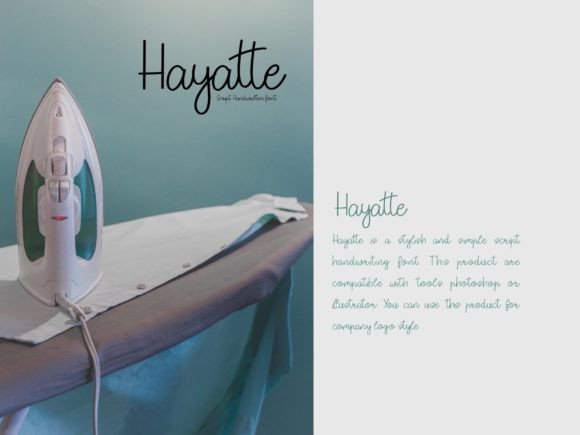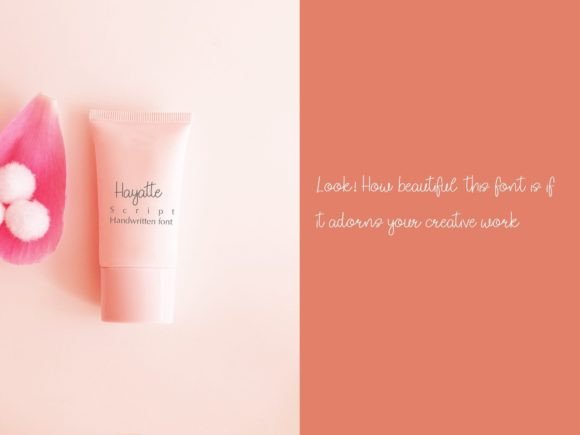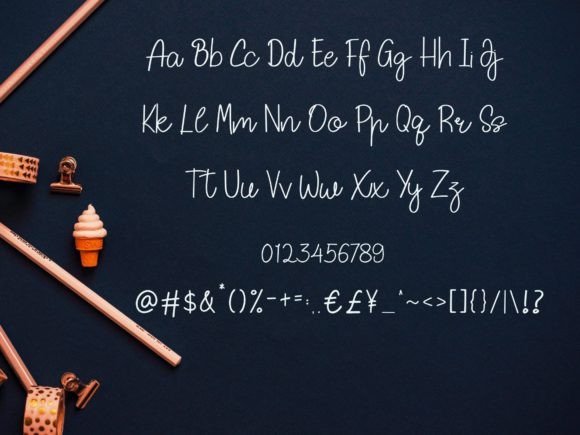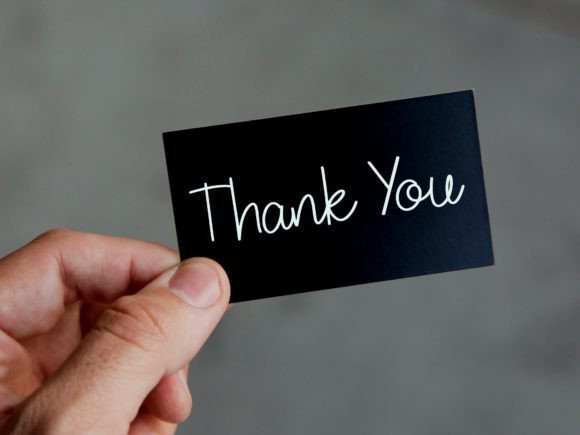
Introduction to Hayatte Font
Remember the thrill of scribbling in your favorite notebook as a child? The freedom to create without worrying about perfection? That same sense of joy can be yours when working with the perfect design resource – the Hayatte Font.
For designers, finding the right font can be a game-changer. It’s the difference between a project that feels complete and one that’s missing that special something. That’s where the Hayatte Font comes in – a simple, yet stylish script handwriting font that’s perfect for adding a personal touch to your creative project.
Key Features of Hayatte Font
- High-quality design for creative projects: Hayatte Font is perfect for designers who want to add a unique touch to their work.
- Transparent background: The transparent background of Hayatte Font makes it easy to use in designs where you need a clean and minimalist look.
- Unique characteristics: Hayatte Font features a unique blend of modern and vintage elements, making it perfect for designers who want to add a touch of creativity to their work.
- High-resolution design: The font is designed at a high resolution, ensuring that it looks great on both small and large scales.
Honest Review: Hayatte Font
I recently stumbled upon the Hayatte Font, and I’m excited to share my thoughts on this design resource. As a designer, I’m always on the lookout for high-quality fonts that can elevate my creative projects.
The Hayatte Font is a beautiful, modern script font that’s perfect for adding a touch of elegance to your designs. With its smooth lines and organic feel, it’s a great choice for logos, invitations, and other design elements where you want to convey a sense of sophistication.
- ✨ High-quality design: The Hayatte Font is well-designed and looks great on a variety of backgrounds.
- ✨ Transparent background: This feature makes it easy to use the font in various design applications, including Photoshop and Illustrator.
- ⚠️ Limited character set: The font only includes a basic set of characters, which may not be sufficient for more complex design projects.
- ⚠️ No bold or italic weights: While the font is available in regular weight, there’s no bold or italic option, which may limit its versatility.
Overall, I’m impressed with the Hayatte Font, and I think it’s a great addition to any designer’s toolkit. While it has some limitations, its high-quality design and free download make it a valuable resource for creative projects.
Tips for Getting the Most Out of Hayatte Font
Experiment with different font sizes, colors, and styles to find the perfect combination for your design. Use the font with a transparent background to add a touch of elegance to your design. Consider using Hayatte Font in a creative project, such as a logo or branding material, to make it stand out.
Hayatte Font is perfect for various design projects, including logos, branding materials, presentations, and documents. Its high-quality design makes it an ideal choice for creative projects. With a transparent background, you can use the font in a variety of contexts, from digital to print media.
Yes, the Hayatte Font includes a transparent background option, allowing you to create stunning designs with a seamless blend of text and background elements. This feature is particularly useful for creative projects that require a high level of design flexibility.